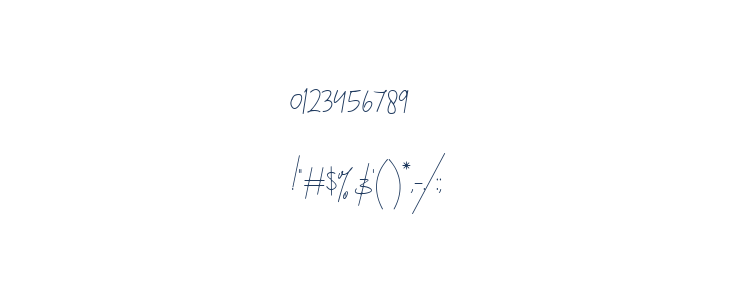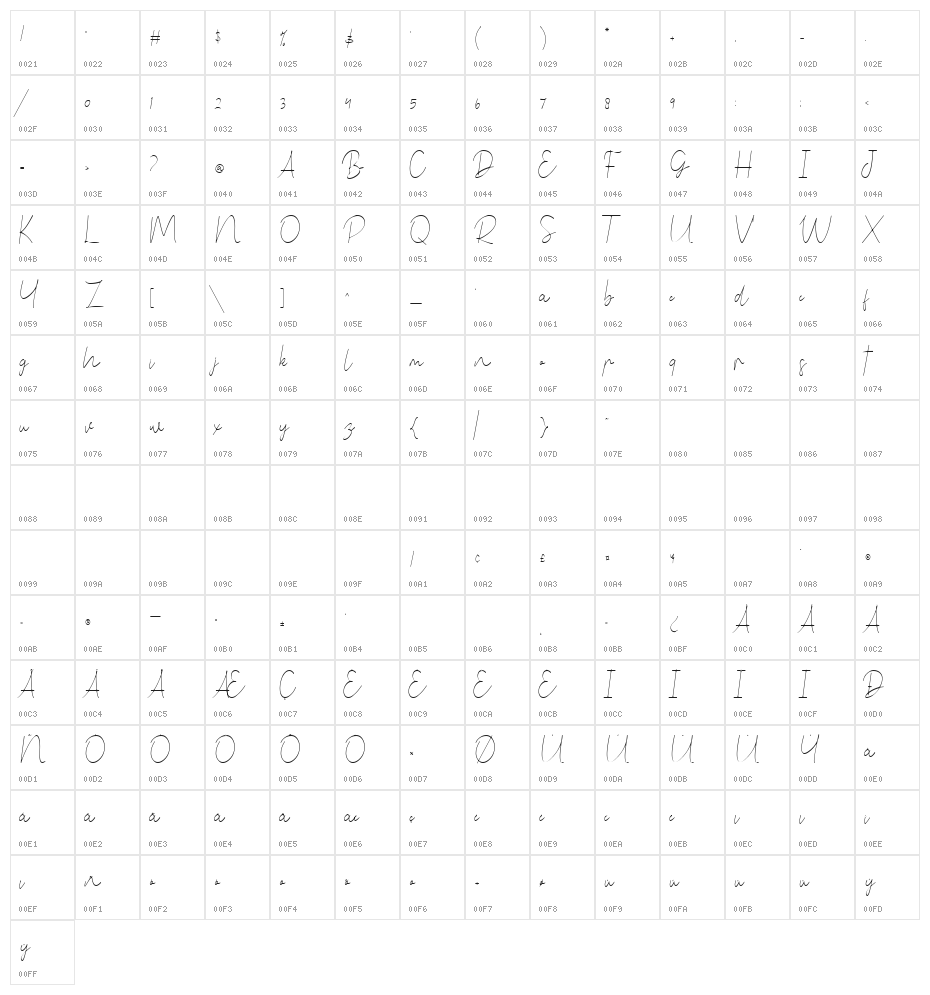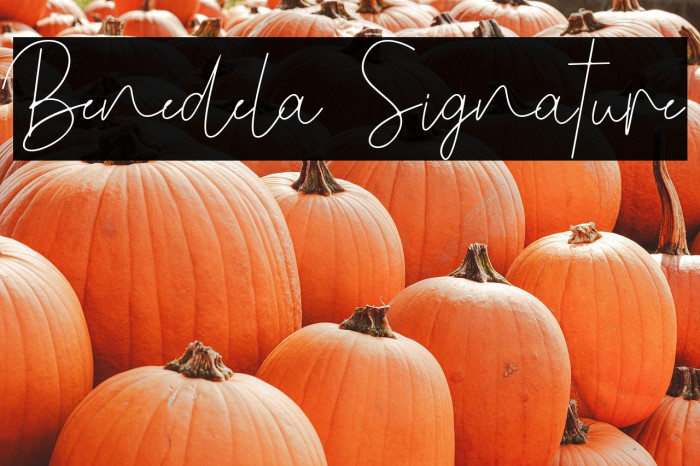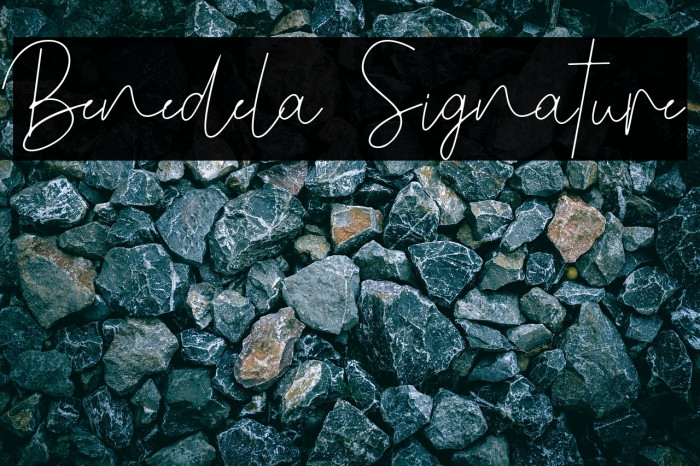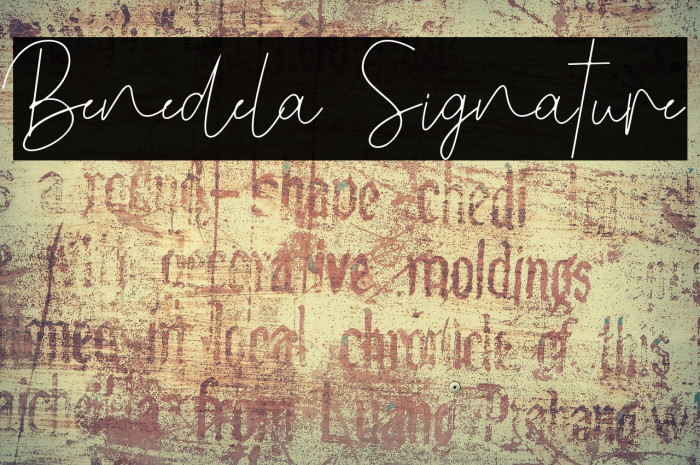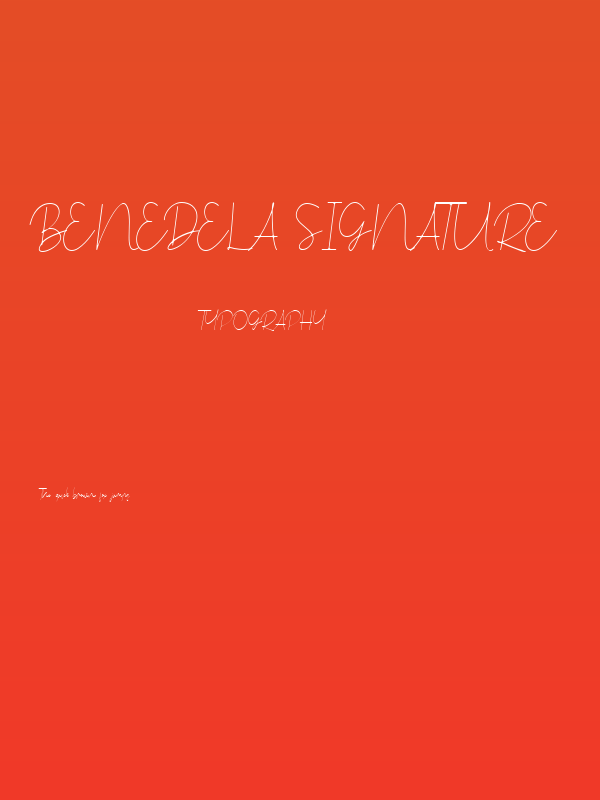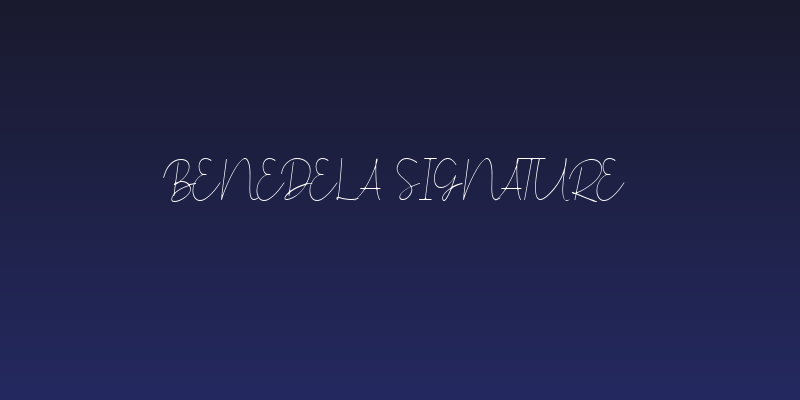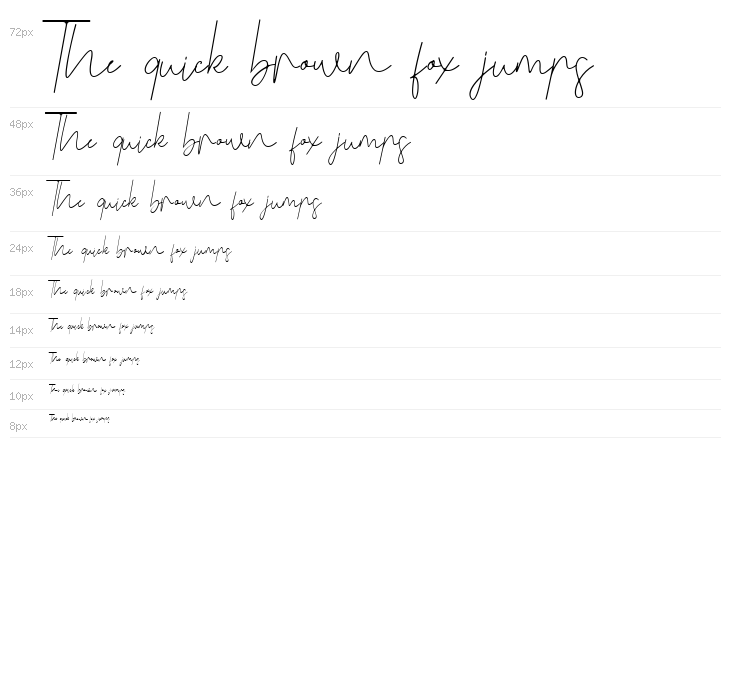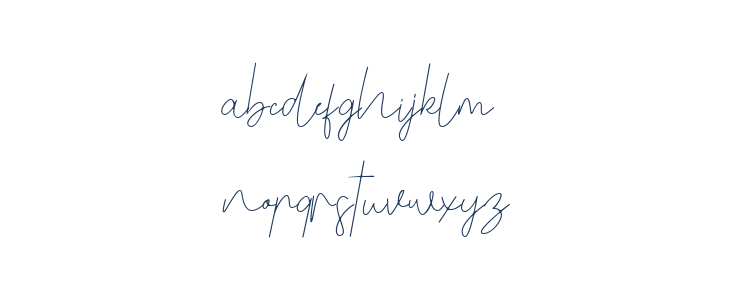
Benedela Signature Font
Benedela Signature Description
This font exudes a delicate and elegant handwritten style, characterized by its flowing and connected letterforms. The strokes are thin and consistent, giving it a graceful and airy appearance. The uppercase letters are tall and slightly elongated, while the lowercase letters maintain a smooth and fluid connection, enhancing the script-like quality. The numerals and special characters are designed to complement the overall aesthetic, maintaining the same thin strokes and elegant curves. This font is perfect for projects that require a personal and sophisticated touch.
| Overall Style | Elegant, Delicate, Handwritten |
| Proposed Projects | Ideal for wedding invitations, personal branding, elegant stationery, and social media graphics. |